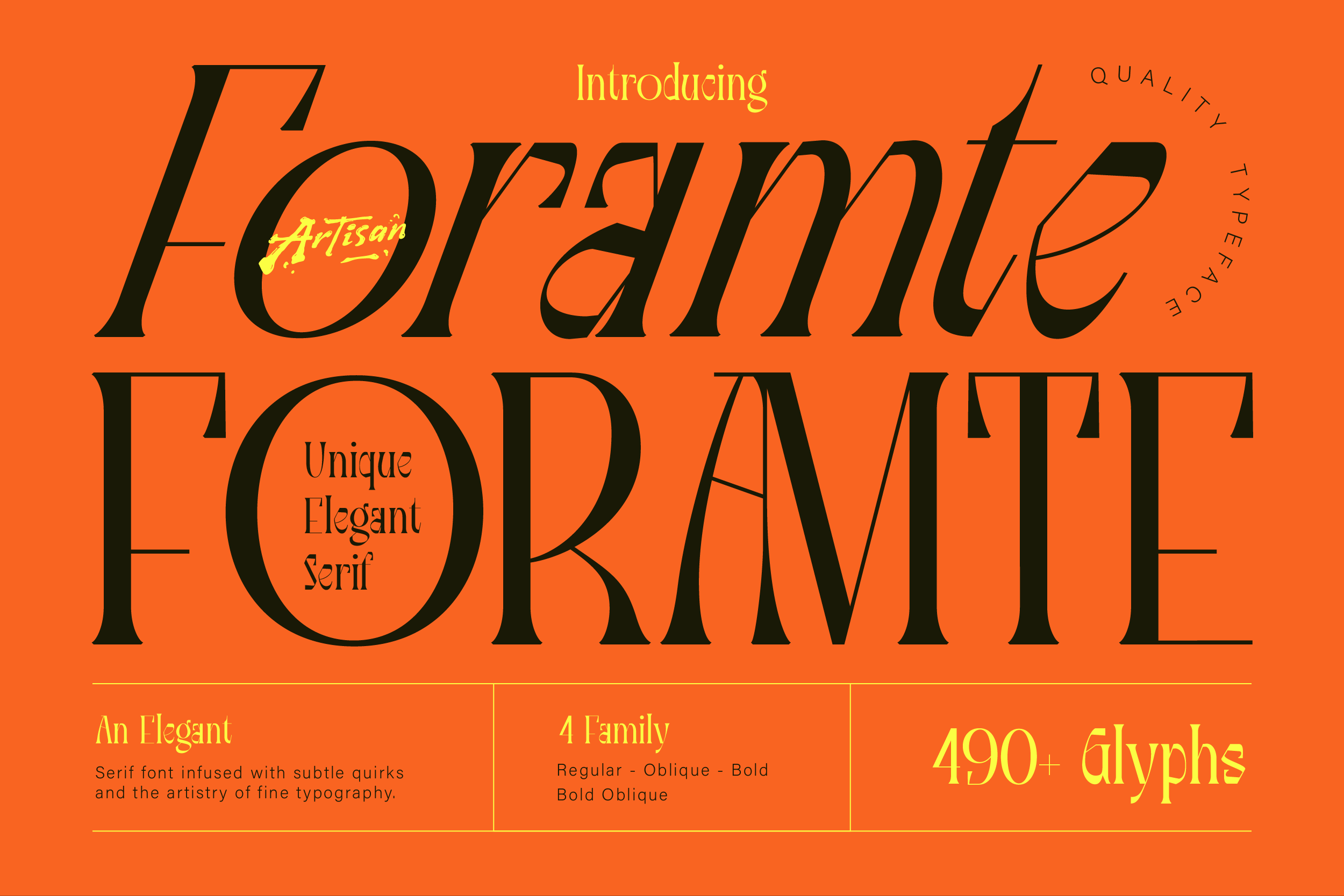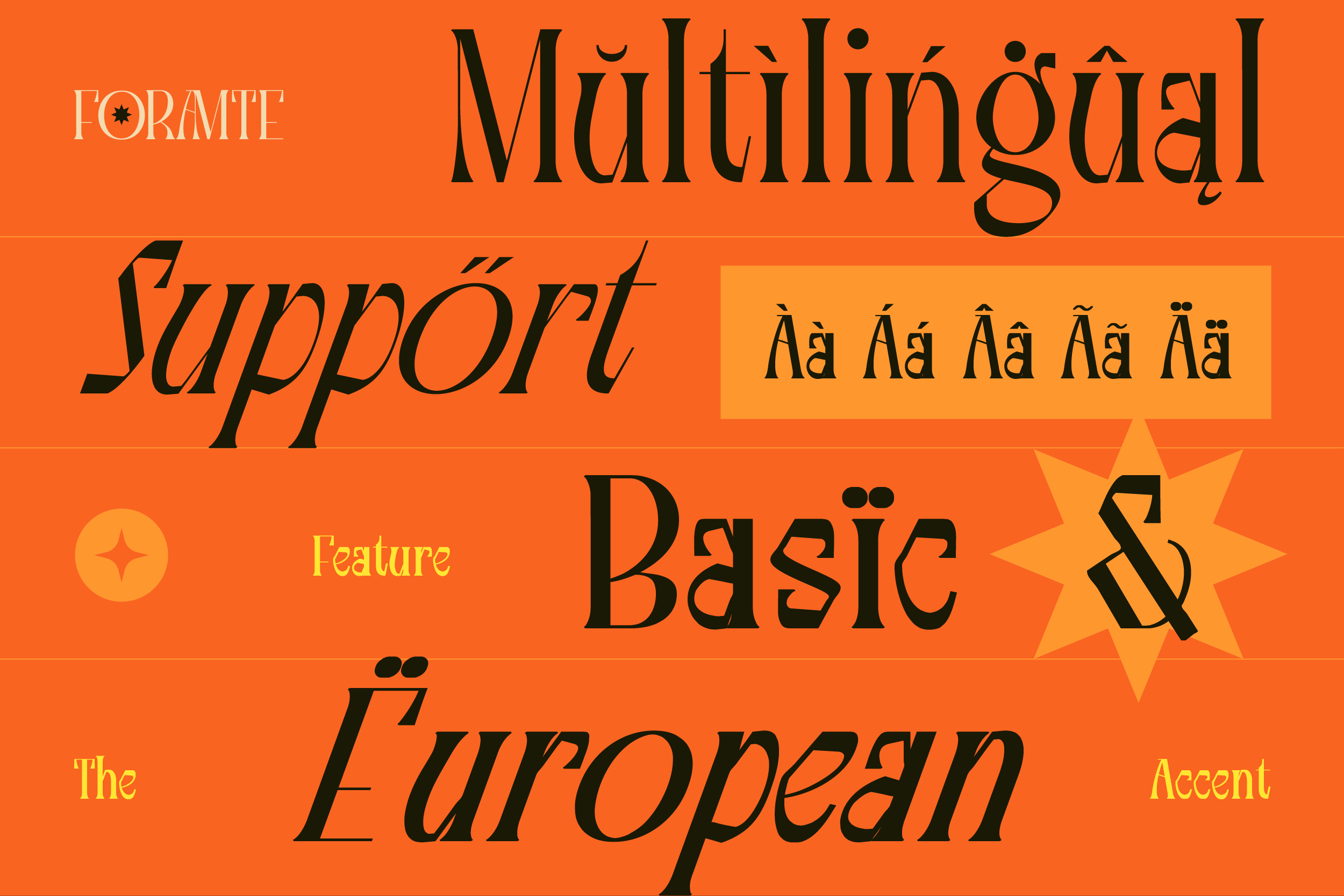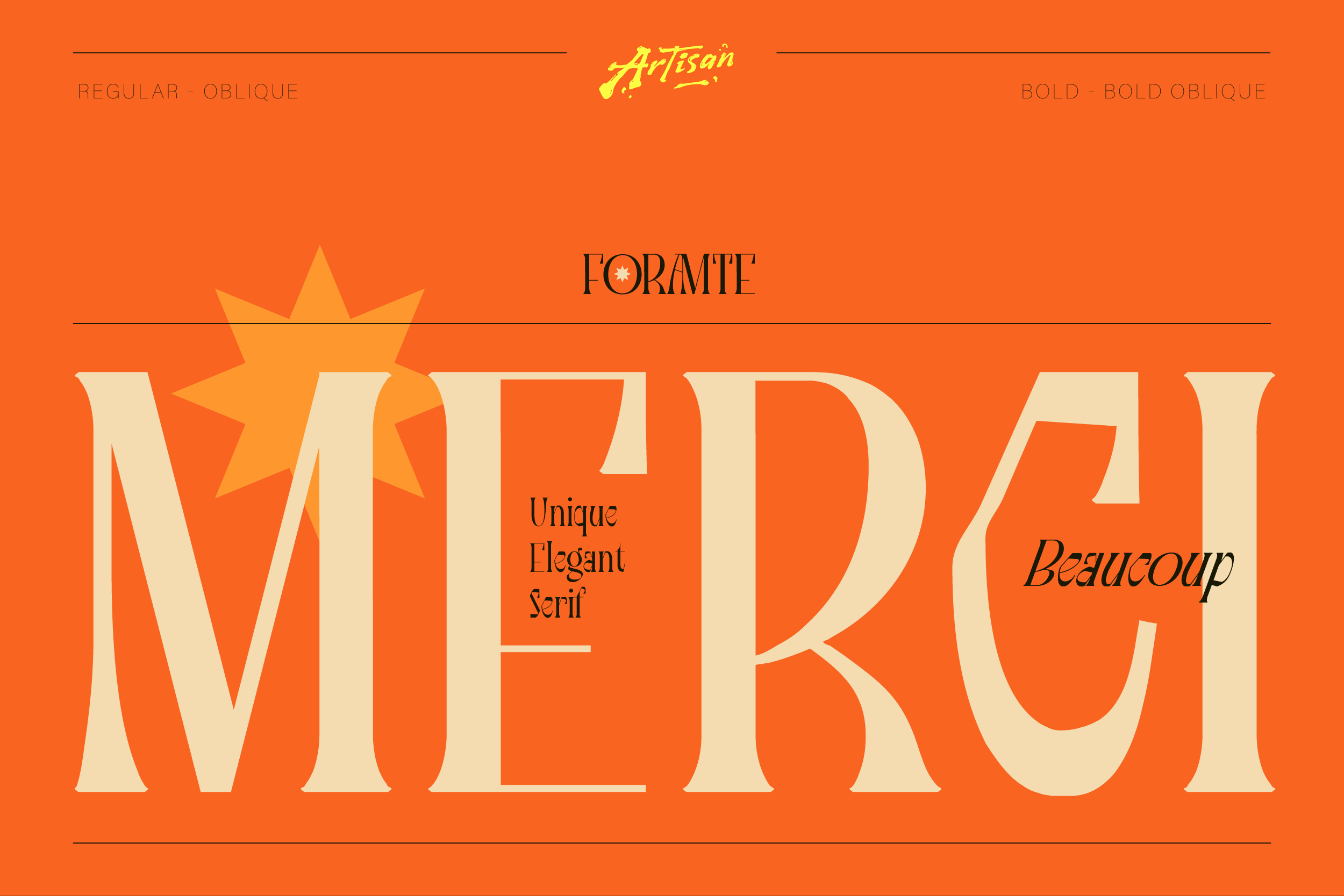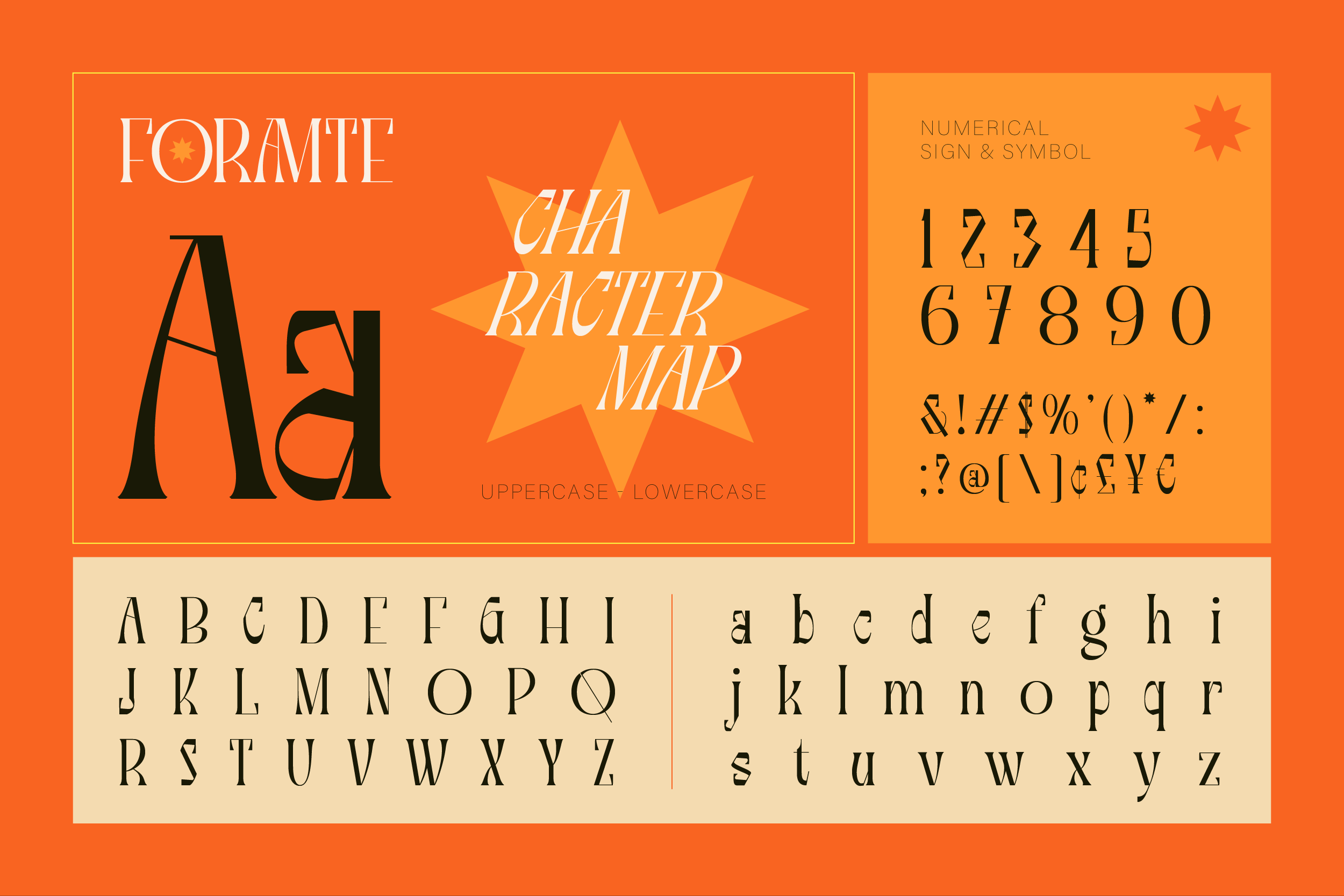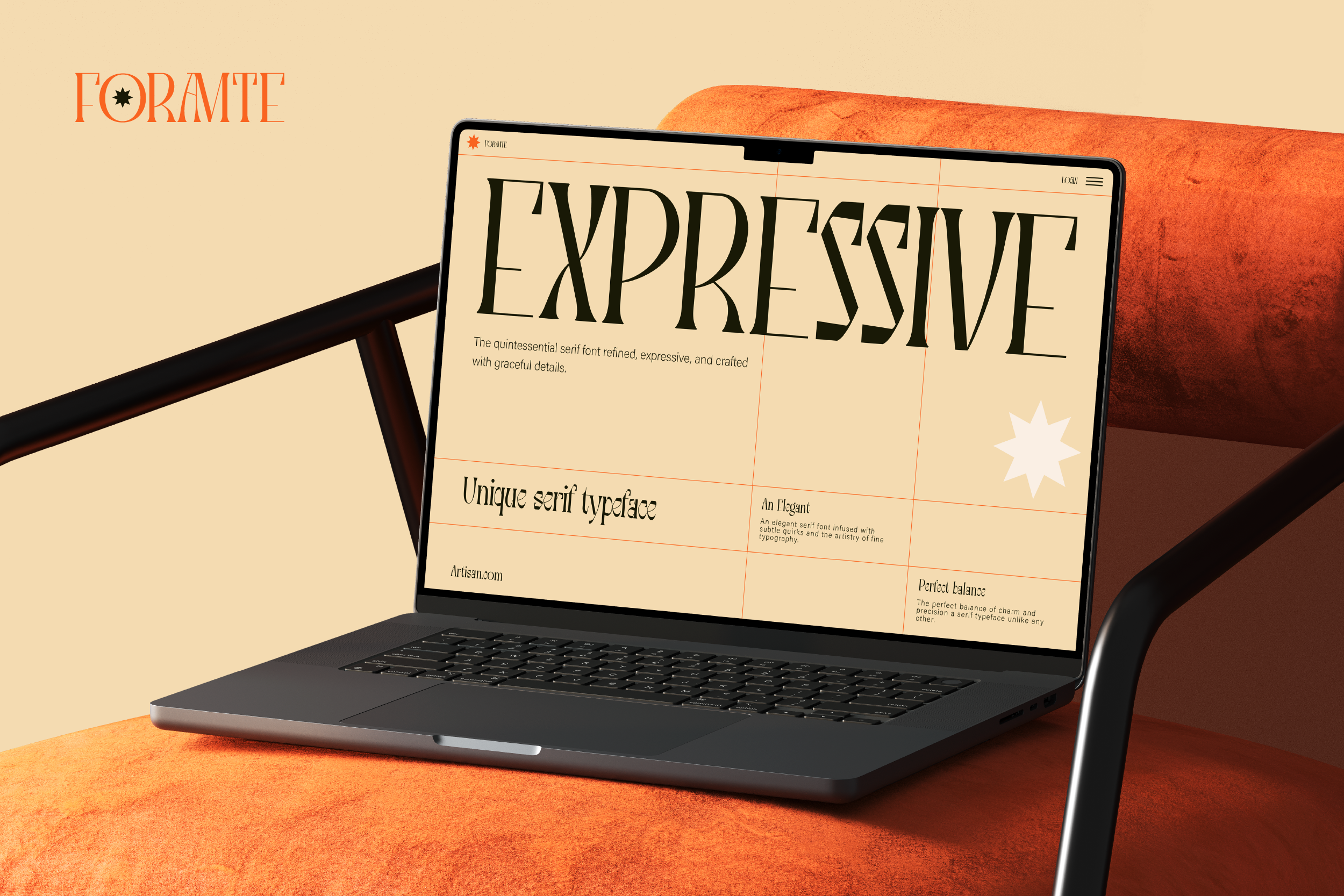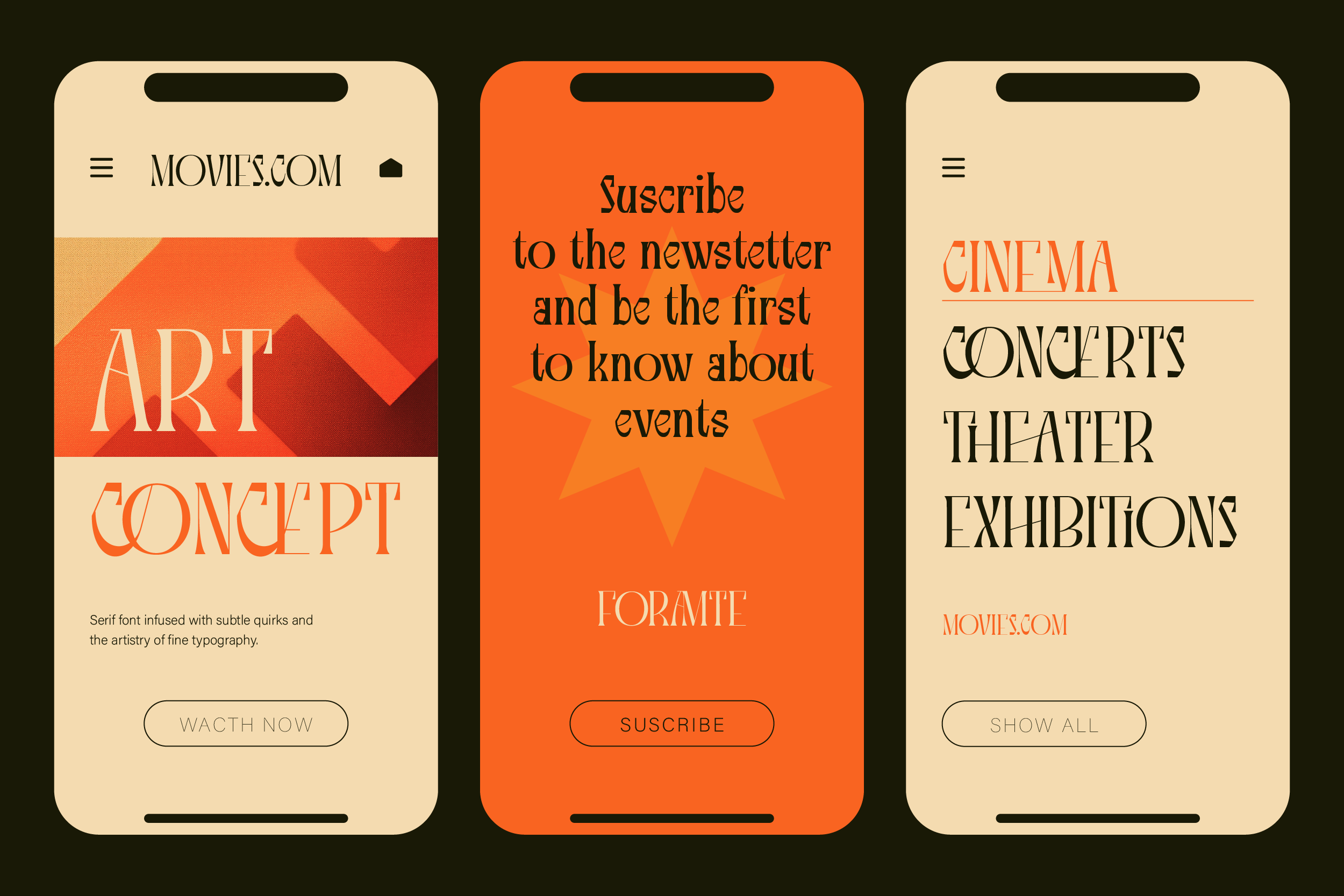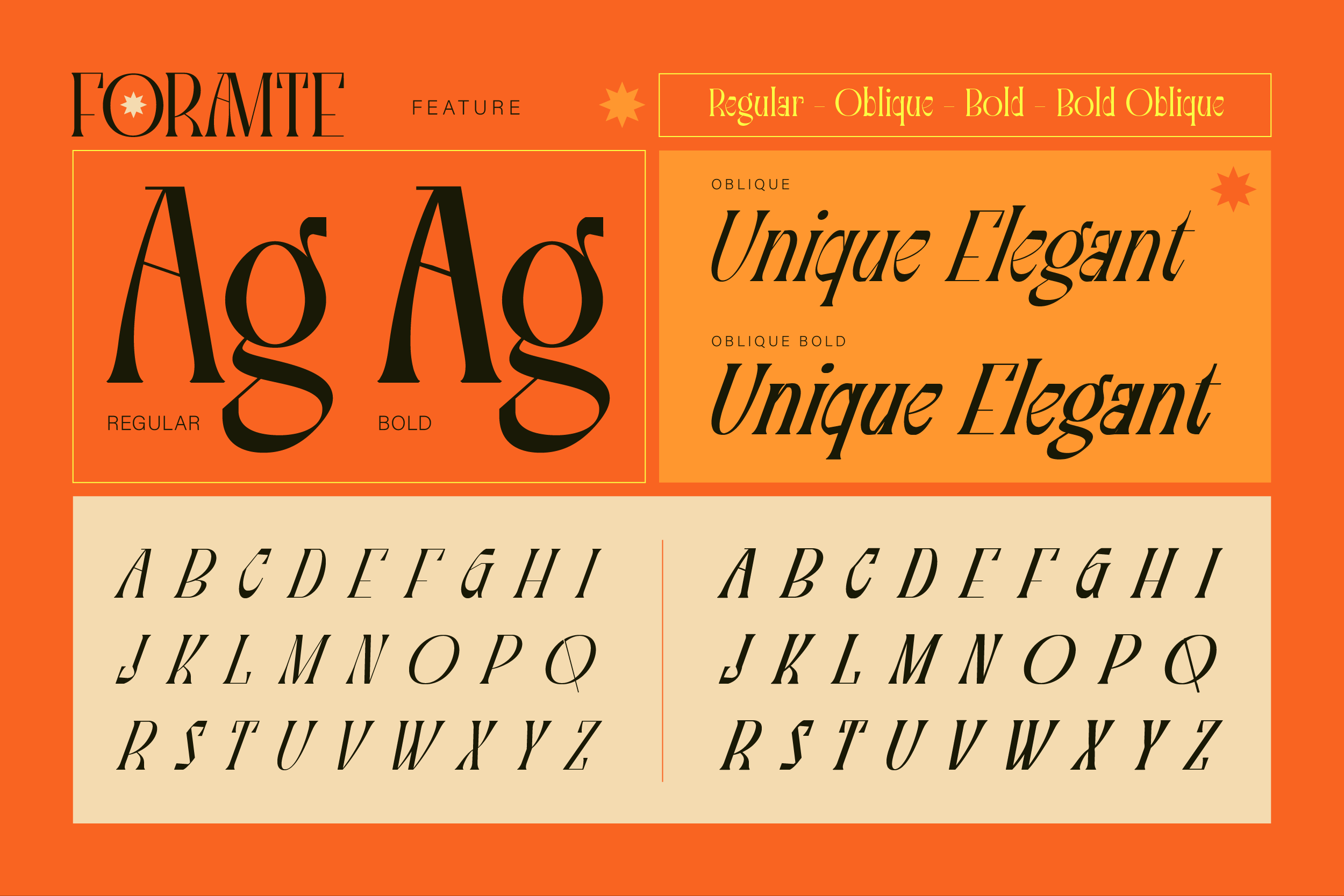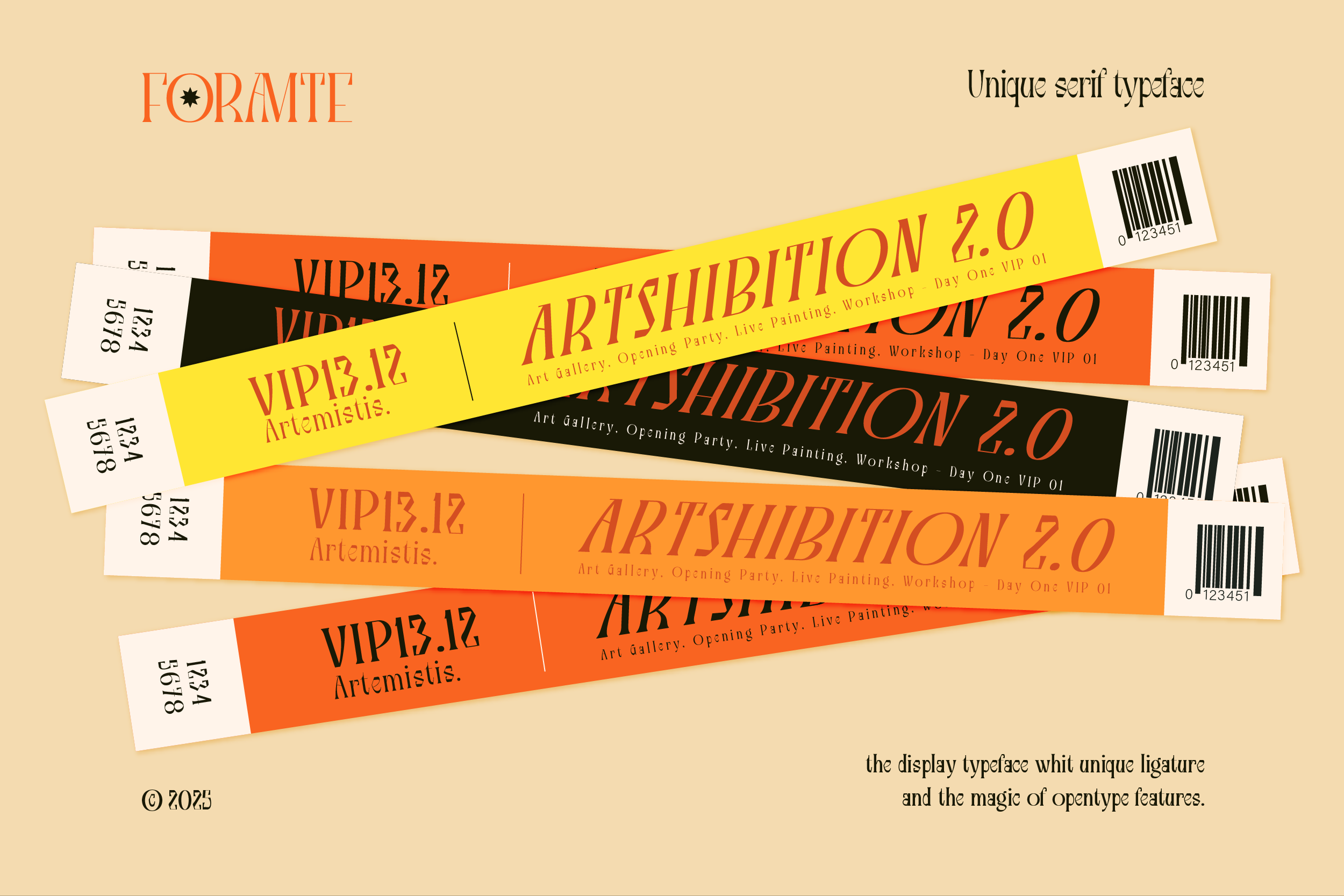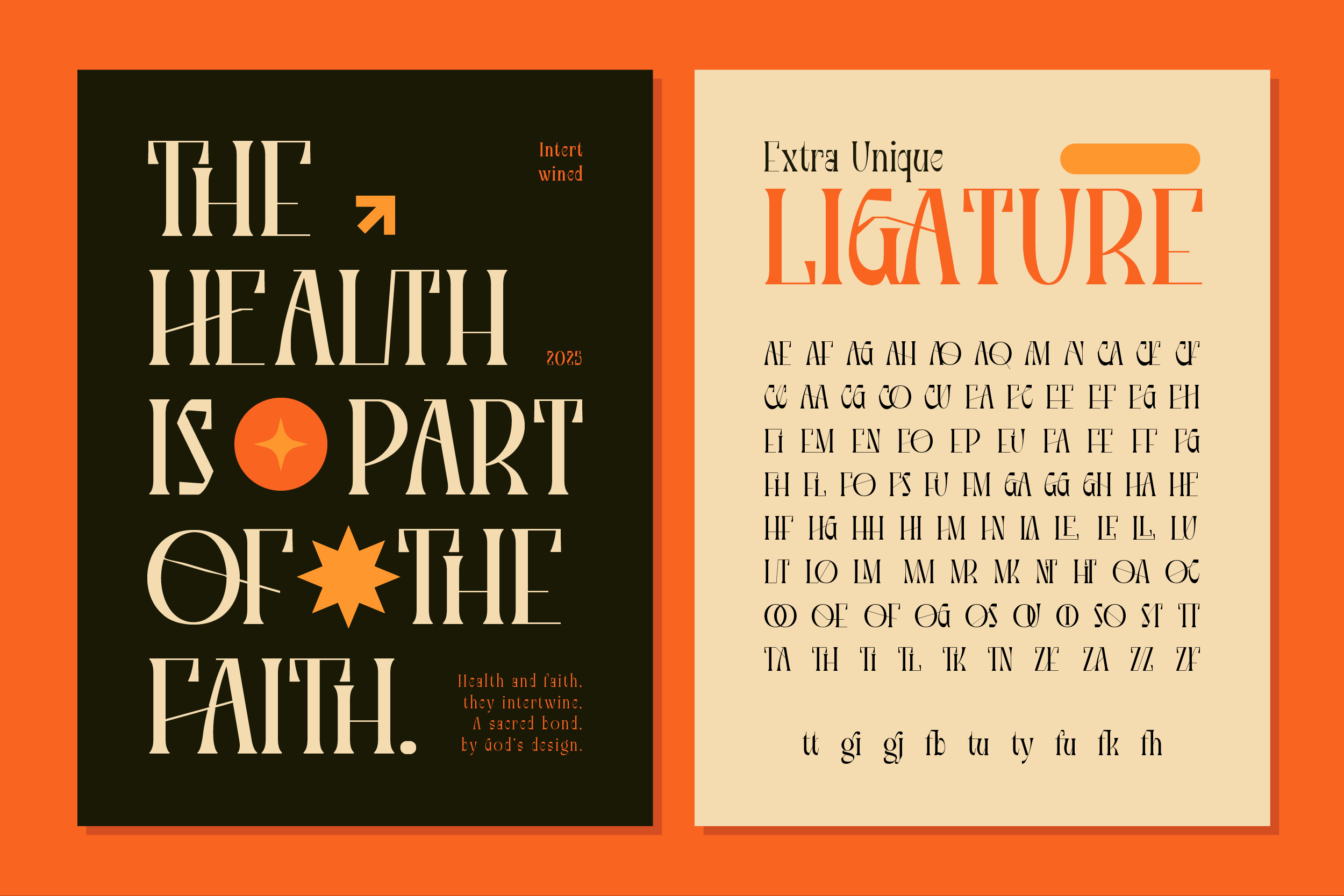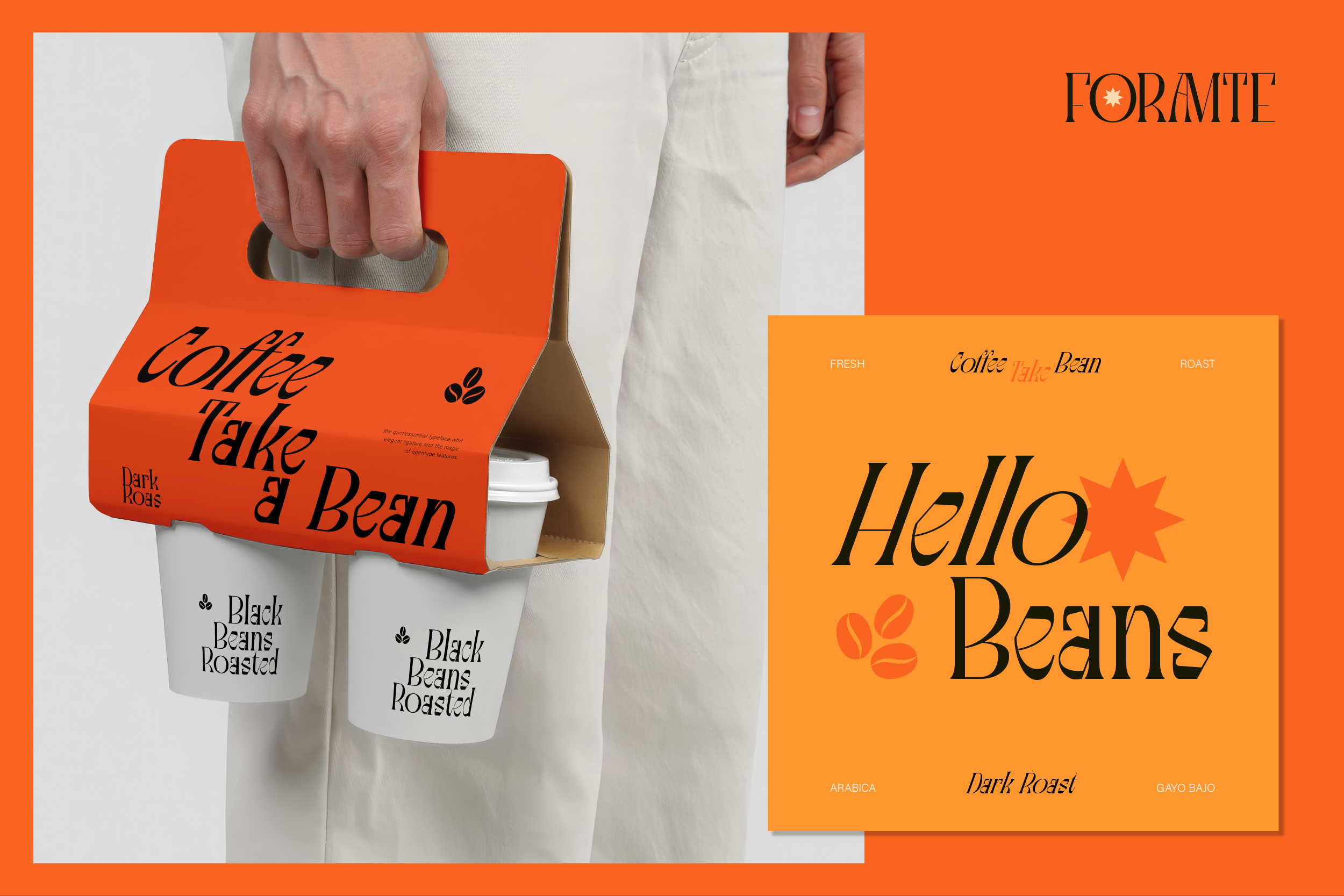
Foramte
REGULAR
BOLD
OBLICQUE
BOLD OBLICQUE
Foramte is a unique and elegant serif font designed to bring character and artistry into your projects. With its refined curves, tall proportions, and expressive letterforms, Foramte perfectly balances sophistication and creativity.
This typeface family comes in 4 styles — Regular, Oblique, Bold, and Bold Oblique — making it versatile for editorial layouts, branding, packaging, posters, and logo design. Foramte captures the beauty of traditional serif fonts with a modern twist, making your typography stand out effortlessly. Whether you’re designing magazine titles or luxury brand identities, this font adds that timeless and stylish touch.
Perfect for:
• Logo design
• Branding & visual identity
• Editorial layouts & magazines
• Fashion & luxury branding
• Packaging design
• Book covers & publishing
• Website headers & hero text
• Social media graphics
• Posters & advertising
• Creative projects that need an elegant and artistic touch
• A – Z set (Uppercase & Lowercase)
• Number
• Punctuation
• Ligature
• Multilingual